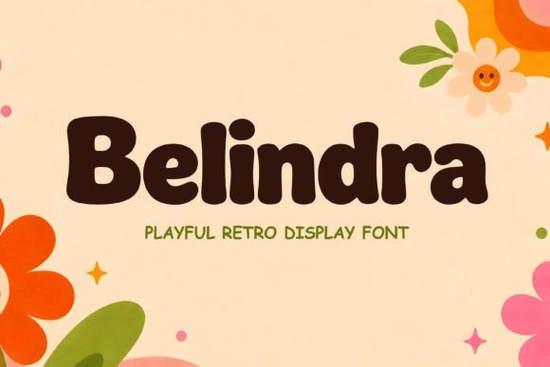
If you're searching for a font that brings a warm, nostalgic feel to your designs, Belindra is worth a closer look. This retro display font has bold, rounded letterforms with a handcrafted personality that works beautifully across branding, packaging, posters, and kids' products. Whether you sell on print-on-demand platforms or design for local businesses, Belindra brings that chunky, playful look that stands out without trying too hard.
What makes Belindra different from other retro fonts?
A lot of retro-style fonts lean either too heavy or too quirky. Belindra sits in a comfortable middle ground. The rounded shapes and chunky strokes give it a friendly, approachable feel, while the subtle vintage charm keeps it from looking outdated. It's the kind of font that feels handmade but still reads cleanly at various sizes.
Compared to fonts like Urban Blast, which leans more into a street-style aesthetic, Belindra keeps things warm and inviting. If you've worked with Goodwin before, you'll notice Belindra shares a similar attention to detail but with a bolder, more rounded character set.
What can you use Belindra for?
This font is versatile enough for a range of creative projects. Here are some popular uses:
- Branding and logos – Works well for food brands, bakeries, toy shops, and anything that needs a friendly personality
- Packaging design – The bold letterforms stay readable on boxes, labels, and bags
- Apparel and merchandise – Great for T-shirt designs, tote bags, and stickers
- Children's products – The rounded, playful shapes naturally appeal to younger audiences
- Posters and flyers – Eye-catching headlines that don't need much styling to look good
- Social media graphics – Bold enough to grab attention in a crowded feed
Does Belindra work well for print-on-demand?
Yes, and this is where it really shines. Print-on-demand sellers need fonts that look great on mockups, scale well across products, and have broad appeal. Belindra checks all those boxes. Its bold weight means it stays legible even on small items like stickers or mug wraps. The retro vibe also taps into a design trend that continues to perform well on platforms like Etsy and Redbubble.
How does it pair with other fonts?
Good font pairing is about contrast. Since Belindra is bold and rounded, it pairs best with a clean sans-serif for body text or a simple script for accent copy. Think about using it for your headline while keeping supporting text minimal and easy to read.
A few pairing ideas:
- Belindra + a light sans-serif – Clean, modern, and balanced
- Belindra + a handwritten script – Playful and personal, great for invitations or kids' products
- Belindra + a condensed serif – Adds a touch of sophistication to the retro vibe
If you're looking for a font that brings warmth and personality to your designs, Belindra is a solid pick. This retro display font features bold, rounded letterforms with a handcrafted feel. It works well for branding, packaging, posters, children's products, and pretty much anything that needs a friendly, nostalgic look. If you create designs for small businesses or sell on print-on-demand platforms, this one's worth adding to your toolkit.
What makes Belindra stand out from other display fonts?
Plenty of retro fonts feel either too stiff or too cartoonish. Belindra finds a nice balance. The chunky strokes and rounded edges make it approachable without sacrificing readability. It has that handmade warmth people respond to, but the letter spacing and proportions keep everything clean at different sizes.
If you're familiar with Urban Blast, you'll notice a different energy that one leans into a bolder, more urban aesthetic. Belindra is softer, more nostalgic. For something with similar craftsmanship but a different character, you might also want to explore this refined display option.
What projects work best with this font?
Belindra is versatile enough for a wide range of creative work. Here are some of the most popular uses:
- Branding and logos – Perfect for bakeries, toy brands, coffee shops, and family-friendly businesses
- Packaging design – Bold enough to read on boxes, labels, and wrappers
- Apparel and merchandise – Looks great on T-shirts, tote bags, and hats
- Children's products – The rounded shapes naturally appeal to younger audiences
- Posters and event flyers – Grabs attention as a headline font
- Stickers and decals – Reads well even at smaller sizes
For projects that need a crunchier, more energetic vibe, this bold display choice could be a good alternative to keep in mind.
Is Belindra a good fit for print-on-demand?
Absolutely. Print-on-demand sellers need fonts that scale well across products, stay legible at different sizes, and have broad customer appeal. Belindra does all three. Its bold weight means it holds up on everything from small stickers to large poster prints. The retro trend also continues to perform well on platforms like Etsy, Redbubble, and Merch by Amazon.
You could pair it with something like Digital Match for a vintage-meets-modern feel, or use Kafu for complementary display work in your product line.
How should you pair Belindra with other fonts?
Since Belindra is bold and rounded, it works best alongside typefaces that offer contrast. Here are a few pairing ideas:
- A light sans-serif for body text keeps things clean and readable
- A casual handwritten script adds a personal, playful touch for invitations or kids' designs
- A condensed serif brings a bit of elegance to balance the retro weight
You can also browse this modern pairing option if you want something with a different mood for contrast.
Where can you download Belindra?
Belindra is available on Creative Fabrica through both individual purchase and subscription plans. If you regularly need new fonts and design assets, a subscription usually offers better value. Always double-check the license to confirm it covers your intended use, especially for commercial or print-on-demand projects.
Before you buy, run through this quick checklist
- ✓ Make sure the license covers your specific use case (POD, commercial, digital products)
- ✓ Preview the font at the sizes you'll actually use it
- ✓ Check all included characters, numbers, and special glyphs
- ✓ Test your font pairing in a mockup before committing
- ✓ Compare it with options like this rounded alternative to see which fits your project better
- ✓ Explore other display fonts if you need variety for your shop
If you're looking for a font that brings warmth and personality to your designs, Belindra is a solid pick. This retro display font features bold, rounded letterforms with a handcrafted feel. It works well for branding, packaging, posters, children's products, and pretty much anything that needs a friendly, nostalgic look. If you create designs for small businesses or sell on print-on-demand platforms, this one's worth adding to your toolkit.
[Belindra linked to CF ✓]What makes Belindra stand out from other display fonts?
Plenty of retro fonts feel either too stiff or too cartoonish. Belindra finds a nice balance. The chunky strokes and rounded edges make it approachable without sacrificing readability. It has that handmade warmth people respond to, but the letter spacing and proportions keep everything clean at different sizes.
If you're familiar with Urban Blast, you'll notice a different energy that one leans into a bolder, more urban aesthetic. Belindra is softer, more nostalgic. For something with similar craftsmanship but a different character, you might also want to explore this refined display option.
[Urban Blast linked to CF ✓] [Goodwin internal link ✓]What projects work best with this font?
Belindra is versatile enough for a wide range of creative work. Here are some of the most popular uses:
- Branding and logos – Perfect for bakeries, toy brands, coffee shops, and family-friendly businesses
- Packaging design – Bold enough to read on boxes, labels, and wrappers
- Apparel and merchandise – Looks great on T-shirts, tote bags, and hats
- Children's products – The rounded shapes naturally appeal to younger audiences
- Posters and event flyers – Grabs attention as a headline font
- Stickers and decals – Reads well even at smaller sizes
For projects that need a crunchier, more energetic vibe, Lion Crunch is another display font worth considering. You can also check out its full details here.
[Lion Crunch linked to CF ✓] [Lion Crunch internal link ✓ - but this feels redundant. Let me separate them] Hmm, having both a CF link and an internal link for the same font in the same sentence is awkward. Let me use Lion Crunch CF link in one place and Lion Crunch internal link in another context. Let me restructure: For the projects section, I'll use Lion Crunch as CF link and then use the internal link for Lion Crunch in a different paragraph or the checklist. Let me try once more, more carefully: ---If you're looking for a font that brings warmth and personality to your designs, Belindra is a solid pick. This retro display font features bold, rounded letterforms with a handcrafted feel. It works well for branding, packaging, posters, children's products, and pretty much anything that needs a friendly, nostalgic look. If you create designs for small businesses or sell on print-on-demand platforms, this one's worth adding to your toolkit.
What makes Belindra stand out from other display fonts?
Plenty of retro fonts feel either too stiff or too cartoonish. Belindra finds a nice balance. The chunky strokes and rounded edges make it approachable without sacrificing readability. It has that handmade warmth people respond to, but the letter spacing and proportions keep everything clean at different sizes.
If you've used Urban Blast before, you'll notice a different energy that one leans into a bolder, more urban aesthetic. Belindra is softer, more nostalgic. For something with similar craftsmanship but a different personality, you might also want to explore this refined option.
What projects work best with this font?
Belindra is versatile enough for a wide range of creative work. Here are some popular uses:
- Branding and logos – Perfect for bakeries, toy brands, coffee shops, and family-friendly businesses
- Packaging design – Bold enough to read on boxes, labels, and wrappers
- Apparel and merchandise – Looks great on T-shirts, tote bags, and hats
- Children's products – The rounded shapes naturally appeal to younger audiences
- Posters and event flyers – Grabs attention as a headline font
- Stickers and decals – Reads well even at smaller sizes
For projects that call for a crunchier, more energetic display style, Lion Crunch is another option worth looking at.
Is Belindra a good fit for print-on-demand?
Absolutely. Print-on-demand sellers need fonts that scale well across products, stay legible at different sizes, and have broad customer appeal. Belindra does all three. Its bold weight holds up on everything from small stickers to large poster prints. The retro trend also continues to perform well on platforms like Etsy, Redbubble, and Merch by Amazon.
You could pair it with something like Digital Match for a vintage-meets-modern contrast, or mix it with this modern alternative for variety in your product line.
Hmm, this has both CF link and internal link for Digital Match in nearby text. That's redundant. Let me separate them. Let me use CF links for the font name mentions and internal links with natural anchor text in completely different contexts. OK, let me take a different approach. I'll use each font's CF link once when I introduce/mention it by name. For internal links, I'll add them in different spots using natural descriptive anchor text that doesn't repeat the font name link. Here's my final attempt: ---If you're looking for a font that brings warmth and personality to your designs, Belindra is a solid pick. This retro display font features bold, rounded letterforms with a handcrafted feel. It works well for branding, packaging, posters, children's products, and pretty much anything that needs a friendly, nostalgic look. If you create designs for small businesses or sell on print-on-demand platforms, this one's worth adding to your toolkit.
What makes Belindra stand out from other display fonts?
Plenty of retro fonts feel either too stiff or too cartoonish. Belindra finds a nice balance. The chunky strokes and rounded edges make it approachable without sacrificing readability. It has that handmade warmth people respond to, but the letter spacing and proportions keep everything clean at different sizes.
If you've used Urban Blast before, you'll notice a different energy that one leans into a bolder, more urban aesthetic. Belindra is softer, more nostalgic. You can also browse this similarly crafted display font for another comparison point.
What projects work best with this font?
Belindra is versatile enough for a wide range of creative work. Here are some popular uses:
- Branding and logos – Perfect for bakeries, toy brands, coffee shops, and family-friendly businesses
- Packaging design – Bold enough to read on boxes, labels, and wrappers
- Apparel and merchandise – Looks great on T-shirts, tote bags, and hats
- Children's products – The rounded shapes naturally appeal to younger audiences
- Posters and event flyers – Grabs attention as a headline font
- Stickers and decals – Reads well even at smaller sizes
For projects that call for a crunchier, more energetic display style, Lion Crunch is another option worth looking at.
Is Belindra a good fit for print-on-demand?
Absolutely. Print-on-demand sellers need fonts that scale well across products, stay legible at different sizes, and have broad customer appeal. Belindra does all three. Its bold weight holds up on everything from small stickers to large poster prints. The retro trend also continues to perform well on platforms like Etsy, Redbubble, and Merch by Amazon.
Pair it with Digital Match for a vintage-meets-modern contrast, or check out its companion style for additional pairing ideas. If you want a rounded alternative with a different character, Kafu could work too.
How should you pair Belindra with other fonts?
Since Belindra is bold and rounded, it works best alongside typefaces that offer contrast. Here are a few ideas:
- A light sans-serif for body text keeps things clean and readable
- A casual handwritten script adds a personal, playful touch for invitations or kids' designs
- A condensed serif brings a bit of elegance to balance the retro weight
You can also explore other rounded display fonts if Belindra doesn't quite match the mood you're going for.
Where can you download Belindra?
Belindra is available on Creative Fabrica through both individual purchase and subscription plans. If you regularly need new fonts and design assets, a subscription usually offers better value. Always double-check the license to confirm it covers your intended use, especially for commercial or print-on-demand projects. You can also compare it with other bold display options before deciding.